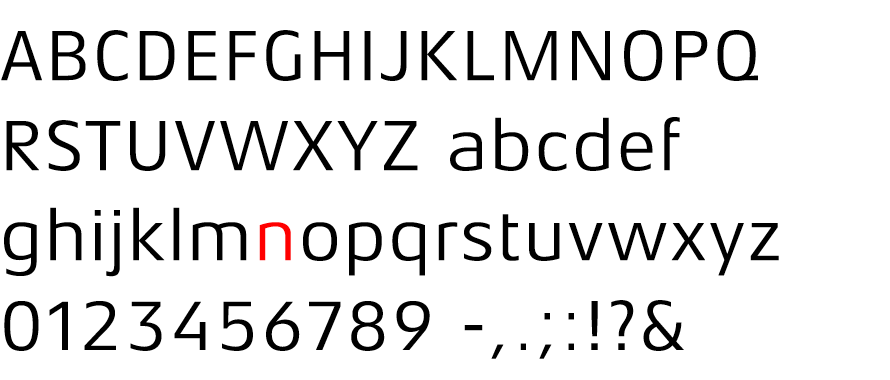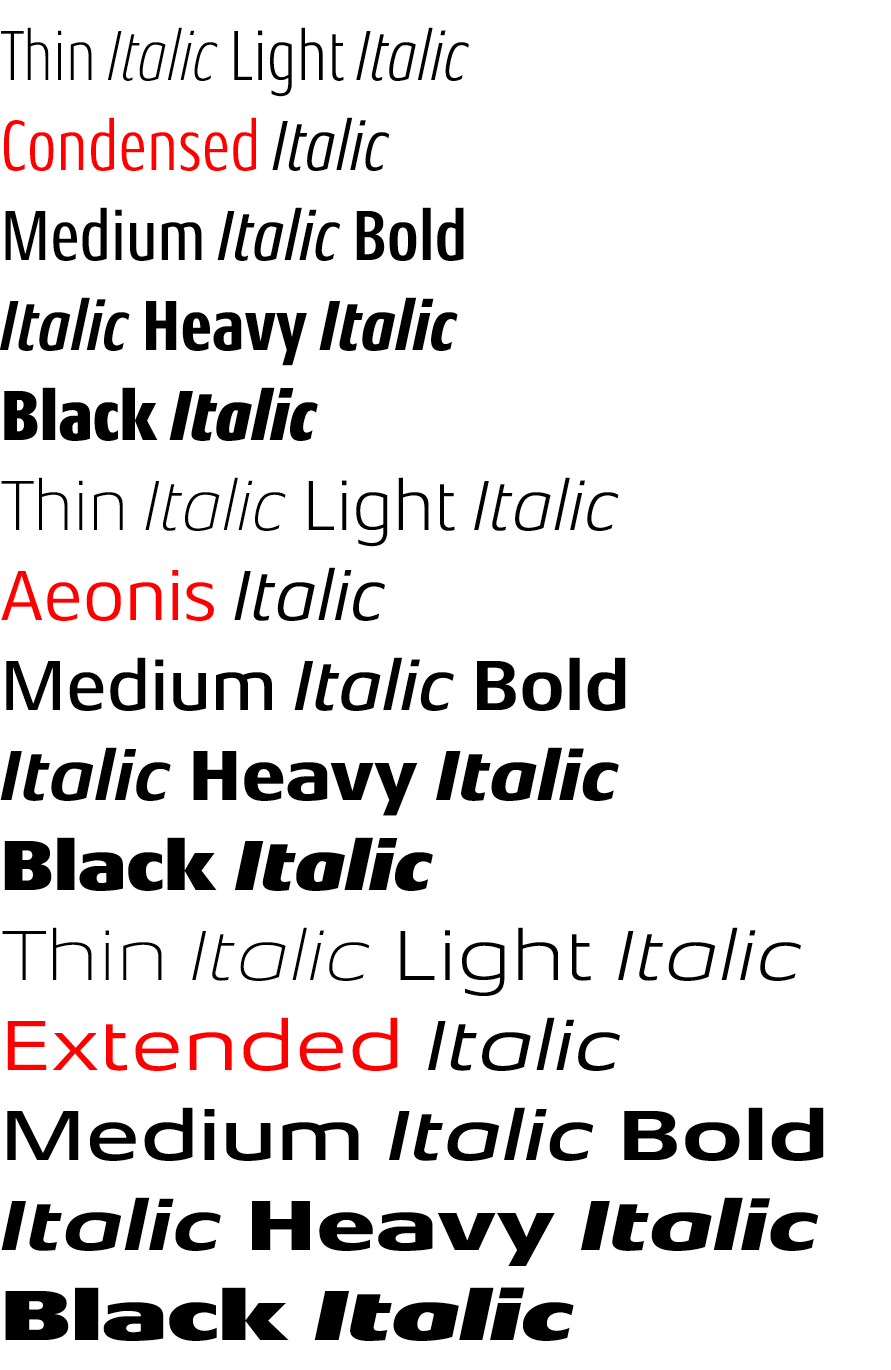
Aeonis
Interrelated font system with unified basic form.
High-quality shapes through carefully designed details.
Inspired by a glass pendant by Wilhelm Wagenfeld.
The lack of spurs on stems gives a clear shape.
For readability not-essential horizontal strokes are removed.
The open form of the alternate capital A is Ideal for logos.
Three widths, seven weights and italics.